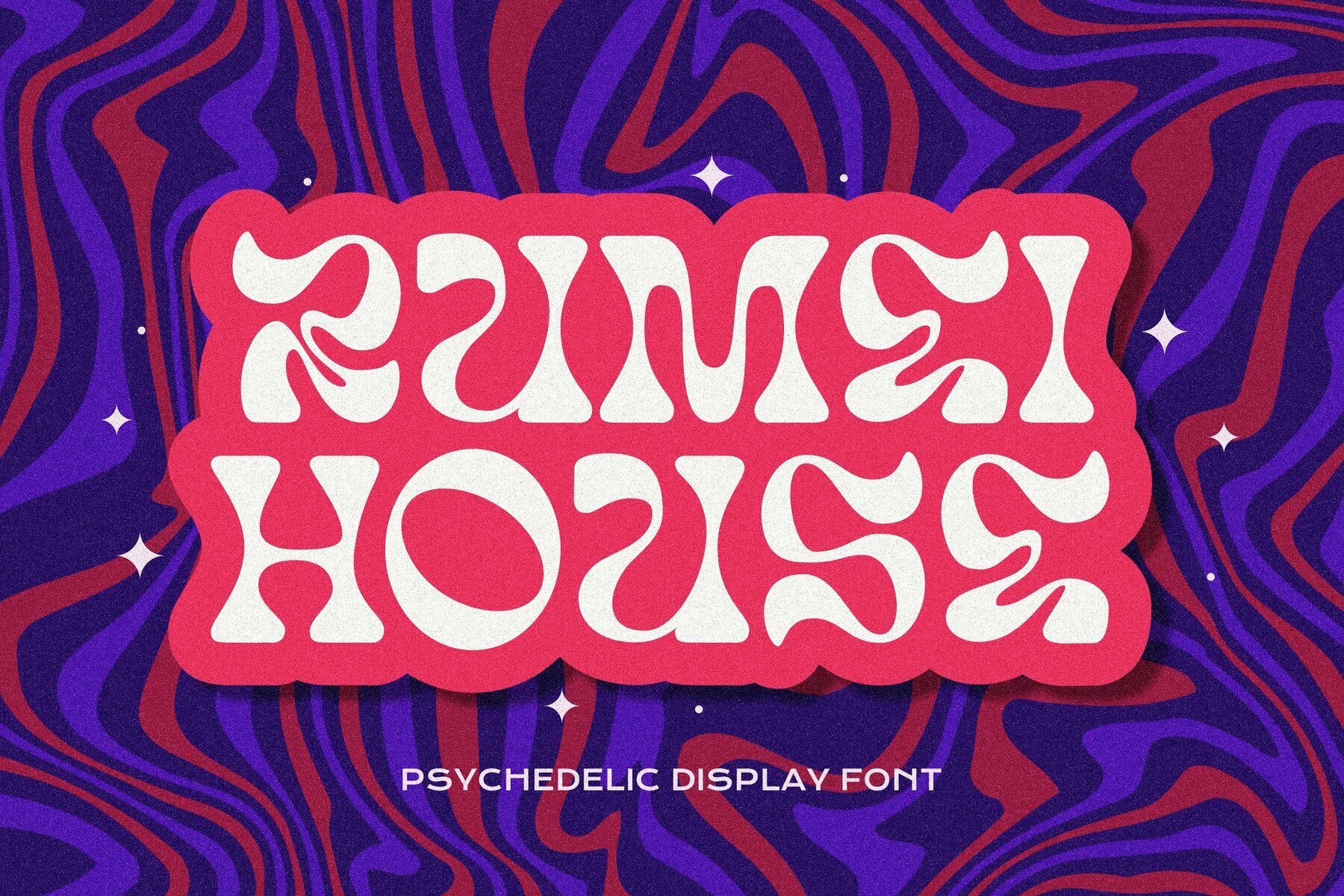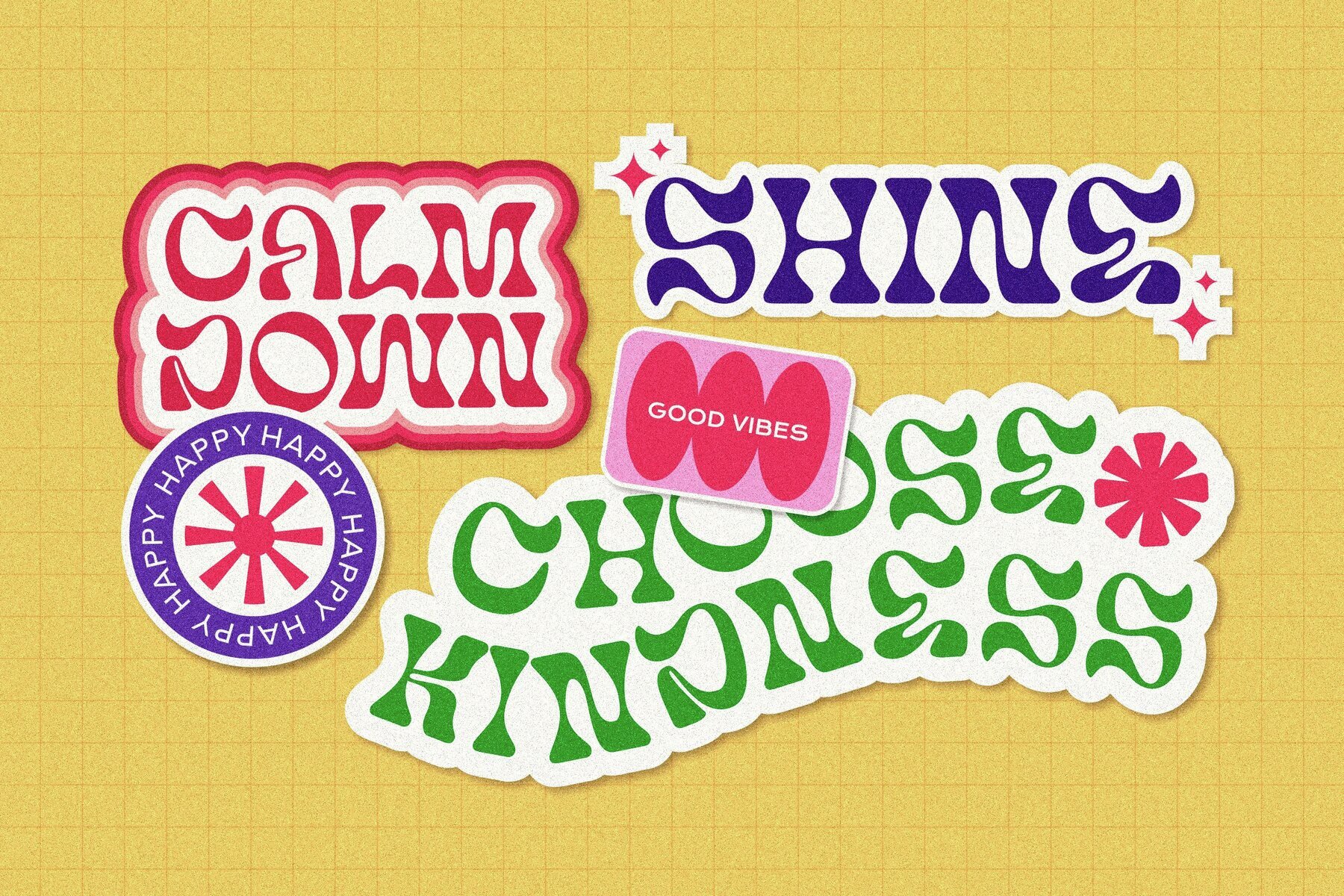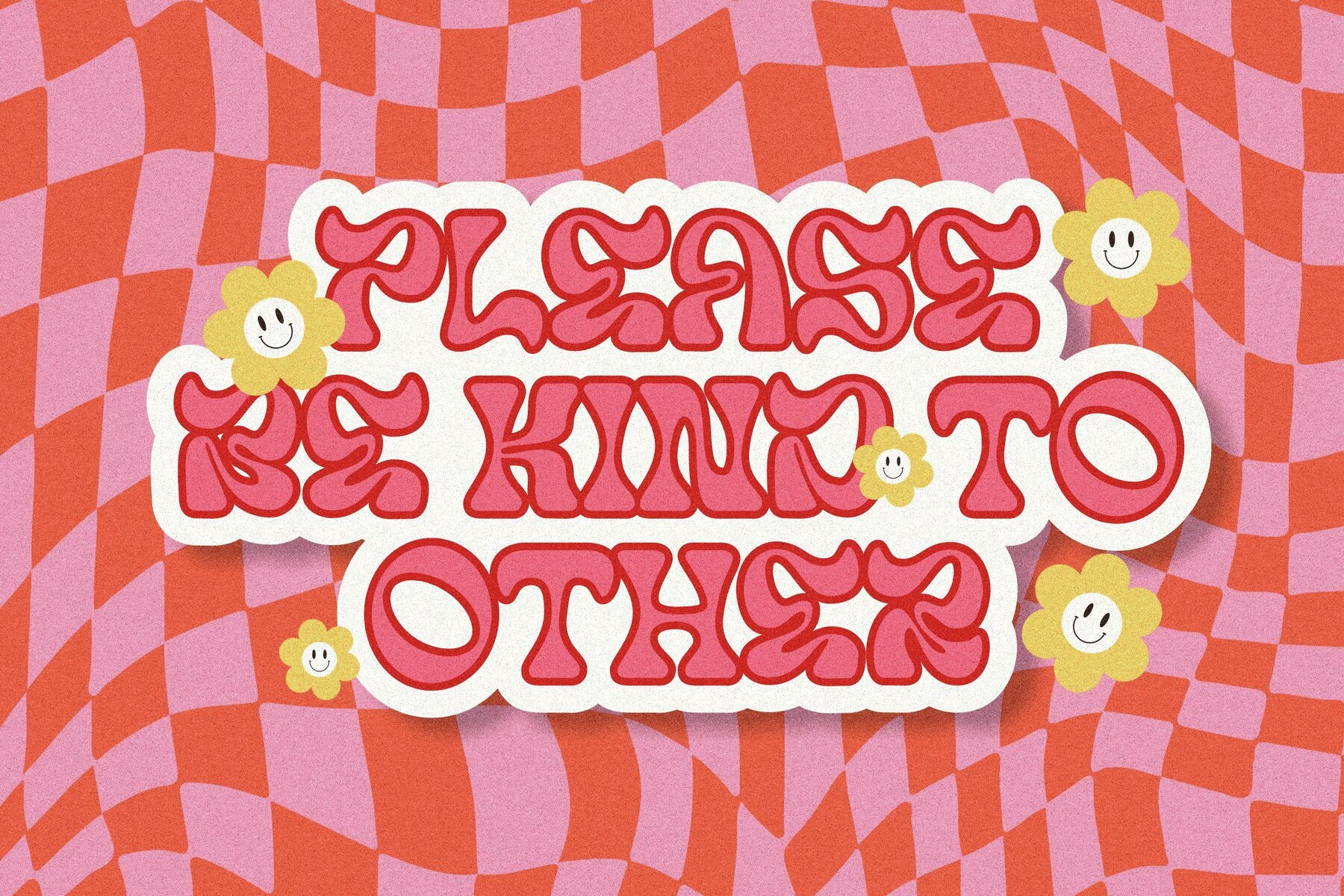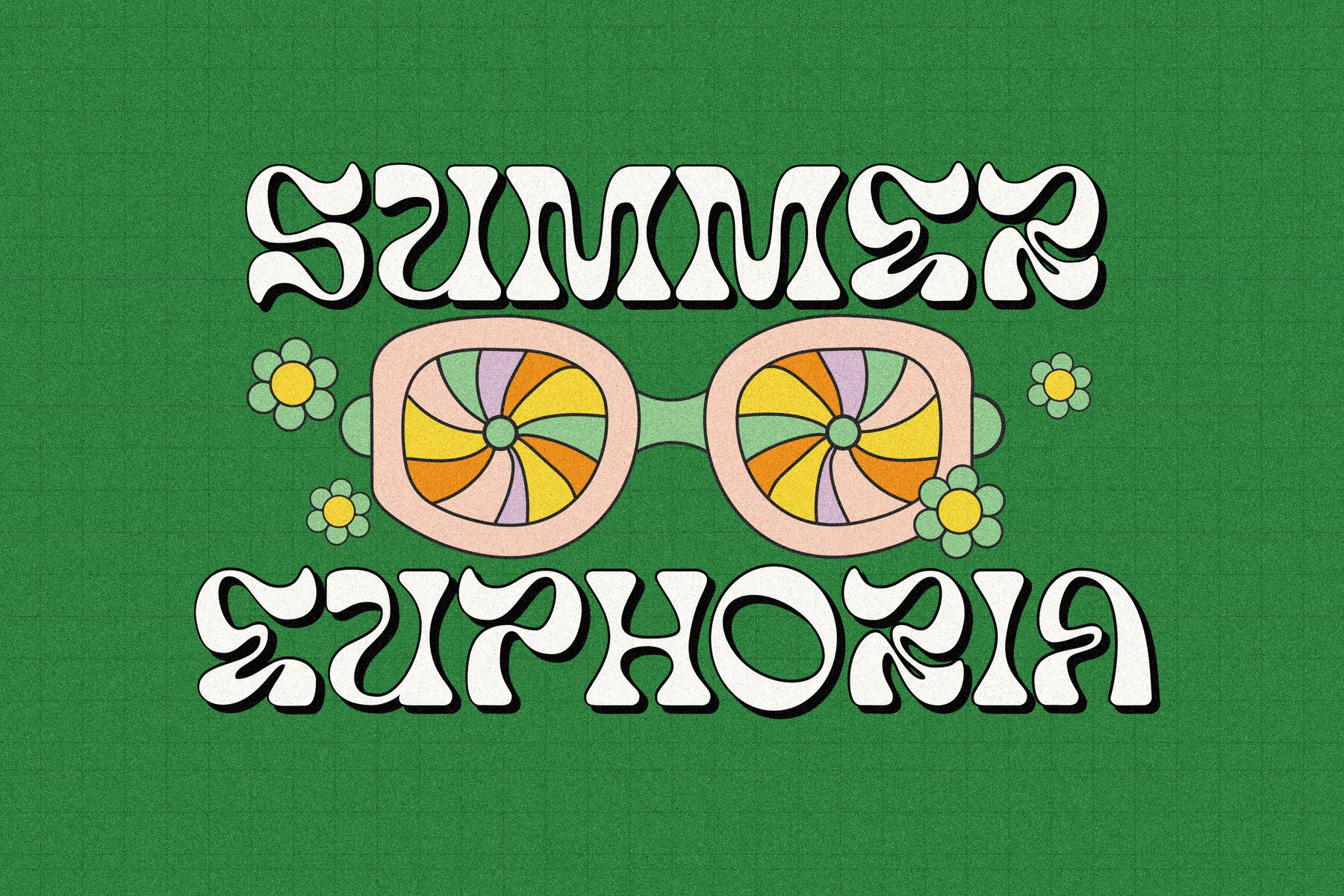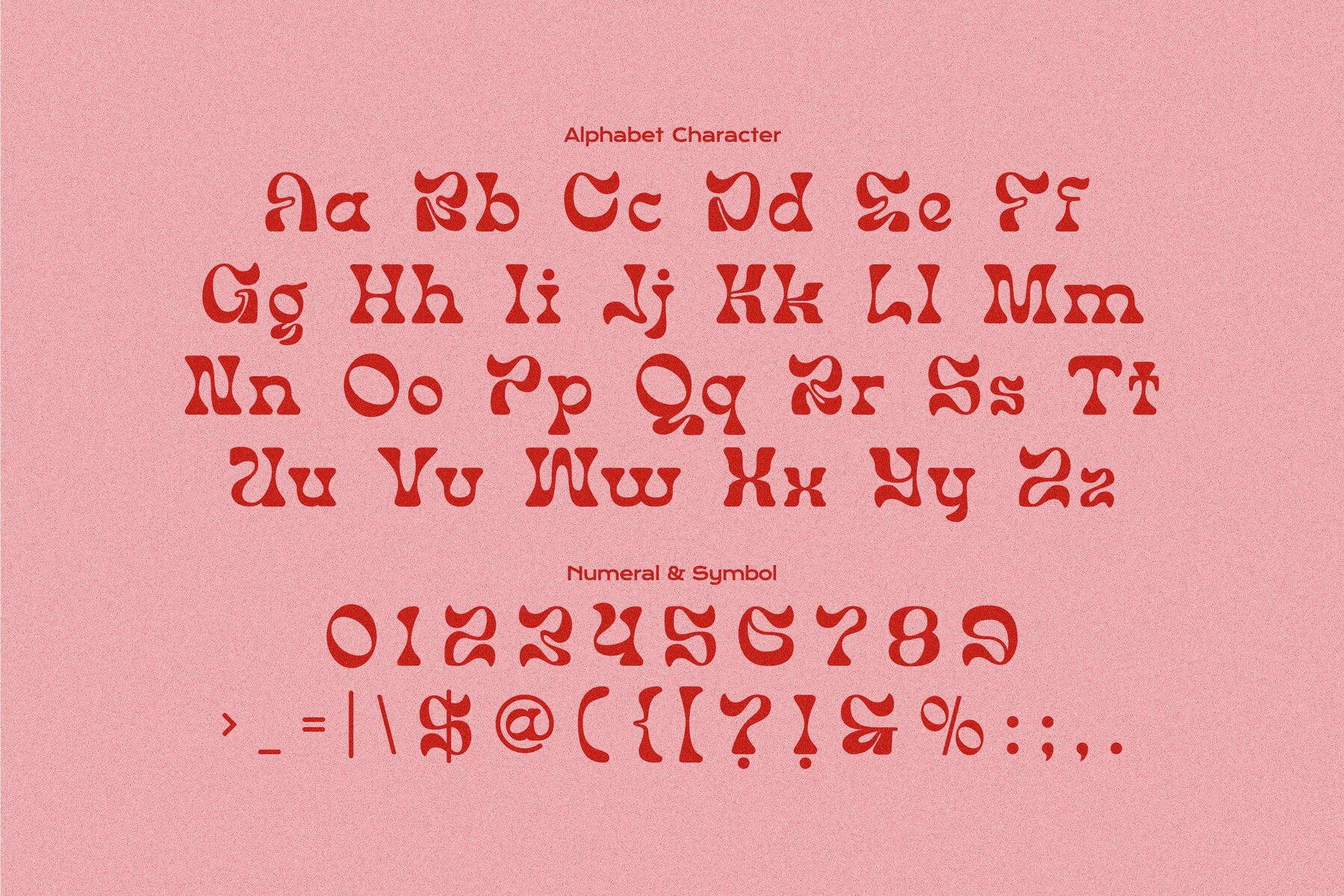
Rumei House Font
Rumei House Regular
Rumei House offers a kaleidoscopic journey through typography, drawing inspiration from the bold strokes of Art Nouveau and the vibrant spirit of the 1960s psychedelic era. This display font infuses a perfectly measured vintage flair into your retro graphics, delivering a design that's both reminiscent and novel. Immerse yourself in the whimsical waves and carefree charm of yesteryears with Rumei House, and let your creations resonate with the vibey echoes of the sixties and early seventies. As a versatile display font, Rumei House functions effortlessly across both uppercase and lowercase, making it an excellent choice for an array of projects. Its potential applications include headings, logos, invitations, branding, book covers, album art, product packaging, and even trippy band posters.Rumei House: A Fusion of Art Nouveau and Psychedelic Delight